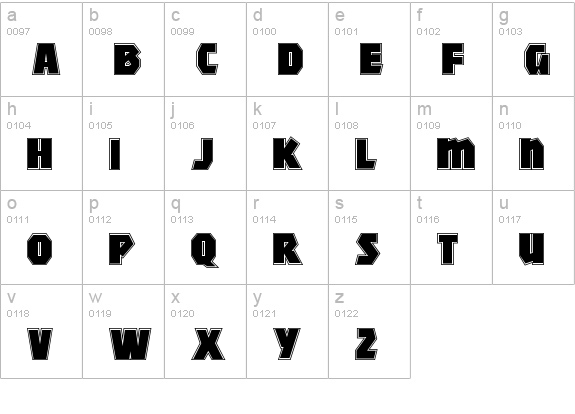
MightyContour-Black Font Details
MightyContour-Black is a maximum-weight, dramatic variant in the MightyContour typeface family \xE2\x80\x94 well suited to maximum-impact headlines, posters, and packaging.
MightyContour-Black is a bold and striking font that demands attention with its powerful presence. Its strong, clean lines and sleek curves exude confidence and modernity, making it ideal for headlines, titles, and branding projects that require a touch of sophistication. The unique contour effect adds depth and dimension to every letter, giving your designs a dynamic edge. What's even better is that MightyContour-Black is available for free download at FontsMarket.com. This means you can easily access this stunning font and incorporate it into your projects without any cost. Whether you're working on a poster, website, or logo design, MightyContour-Black is sure to make a bold statement and leave a lasting impression on your audience. Elevate your typography game with this versatile and eye-catching font today!